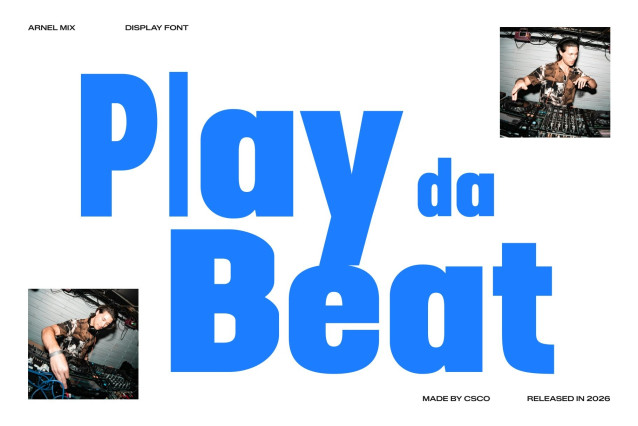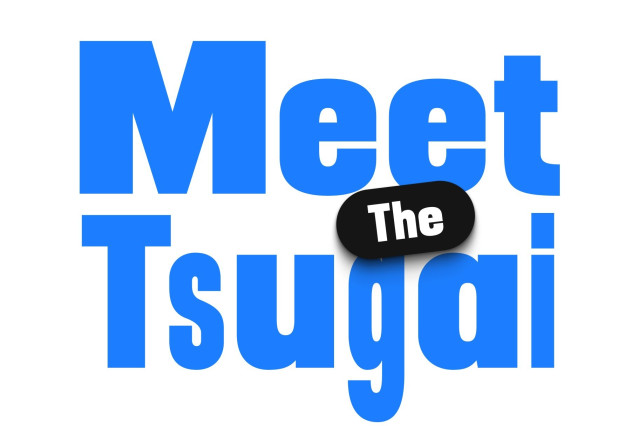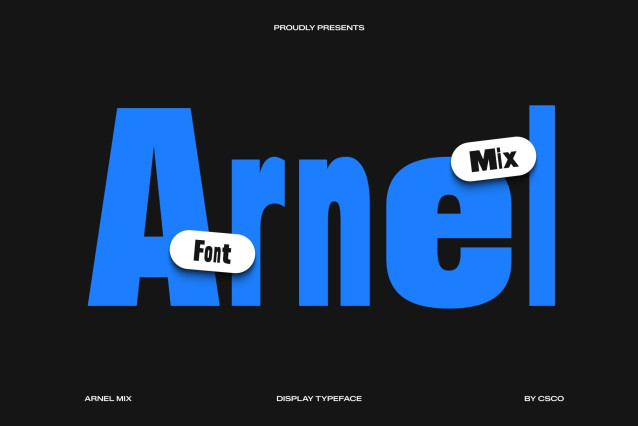
Arnel Mix – Bold Sans Serif: Powerful Presence with Modern Mixed Character
Bold Display Sans with Mixed Style Personality
This is a bold sans serif font designed to radiate strength, confidence, and commanding visual impact. Crafted as a powerful display typeface, it introduces a distinctive mixed-style concept that adds rhythm and contrast to its robust structure. This fusion transforms strong typography into a dynamic design element that instantly captures attention.
A Strong Blend of Bold and Regular Letterforms
The signature character of this font lies in its creative fusion of bold and regular styles. This mix creates striking contrast and visual movement, allowing text to feel energetic, expressive, and modern. The interplay between heavy strokes and balanced forms gives the font a confident personality while maintaining clarity and harmony in every composition.